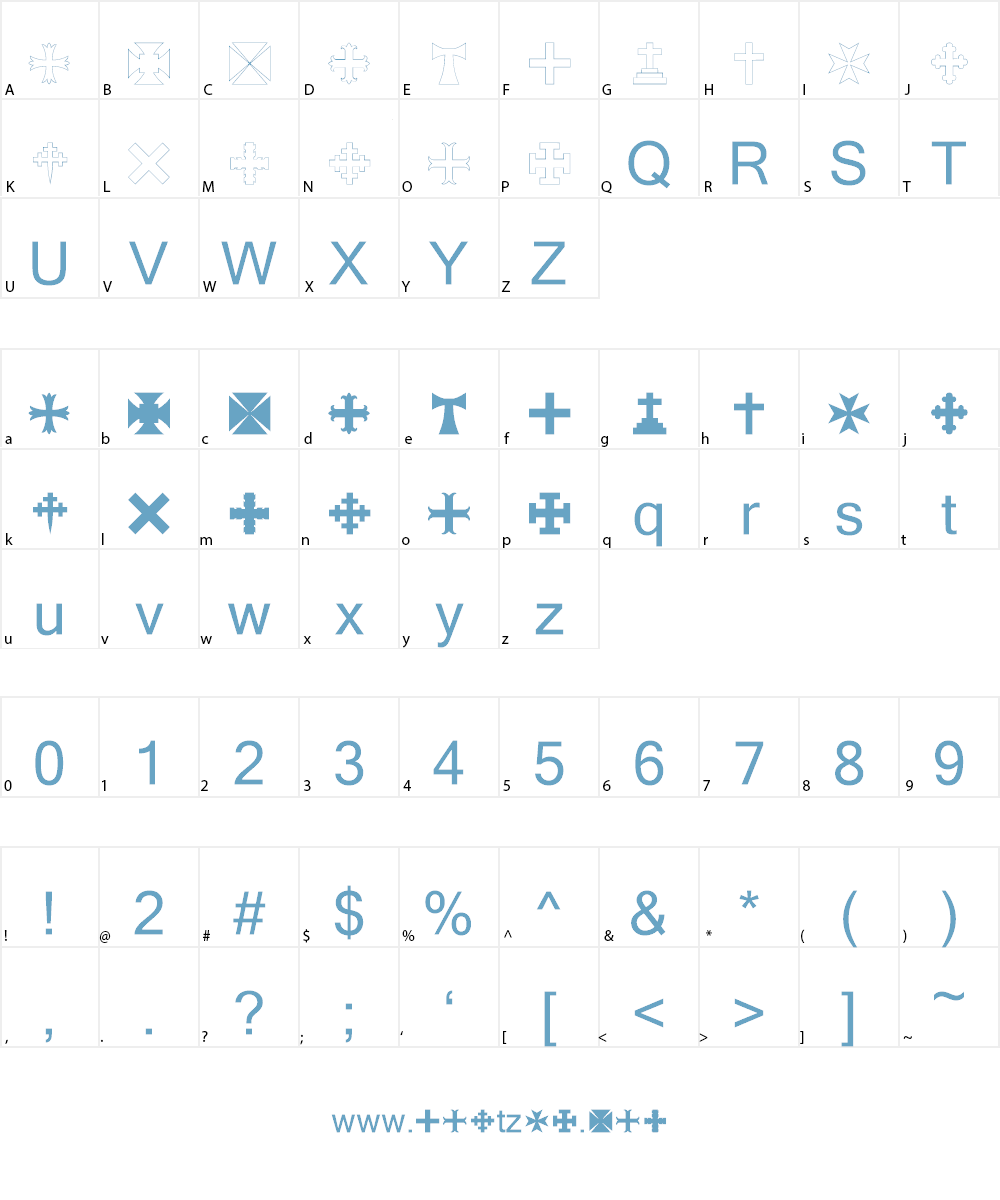
The name of crosses in RTA Cross:
A/a - Patonce
B/b - Patee Quadrate
C/c - Patee or Formee
D/d - Flory
E/e - Tau
F/f - Plain
G/g - Calvary
H/h - Passion
I/i - Maltese Cross
J/j - Botony
K/k - Crosslet Fitchee
L/l - St. Andrews Cross
M/m - Raguly
N/n - Crosslet
O/o - Moline
P/p - Potent